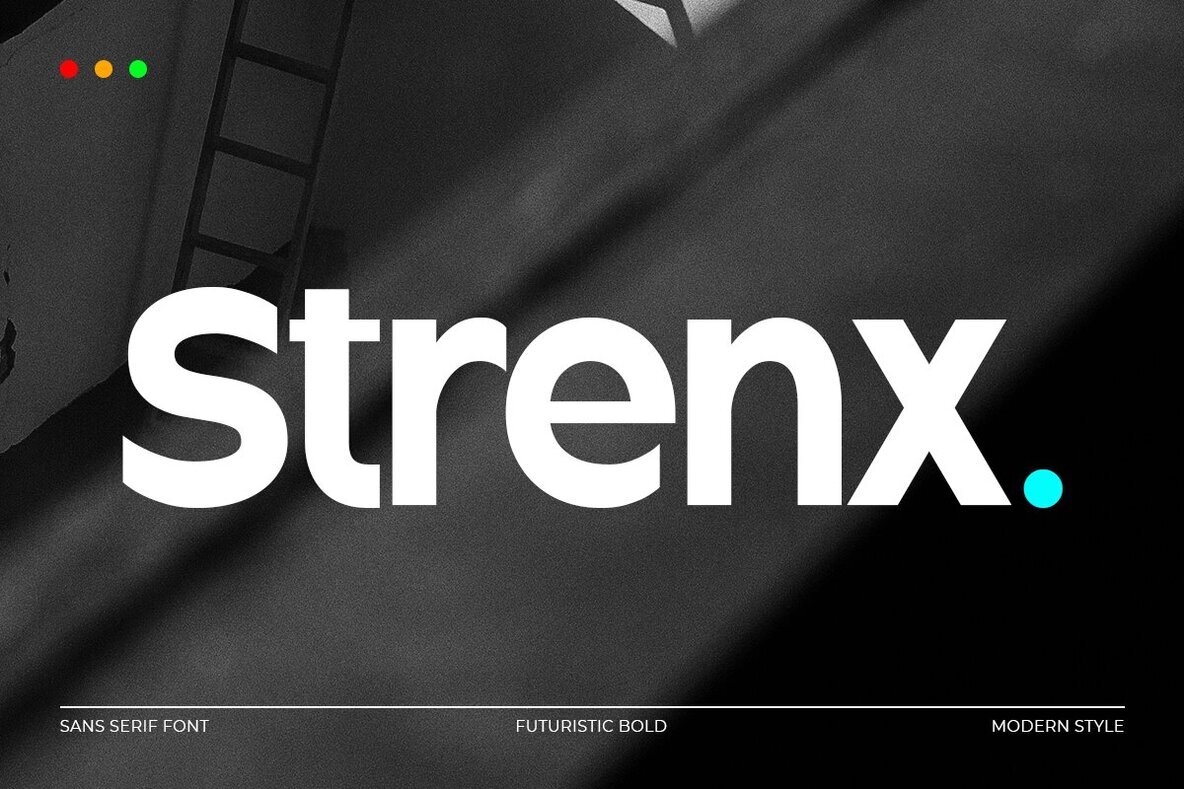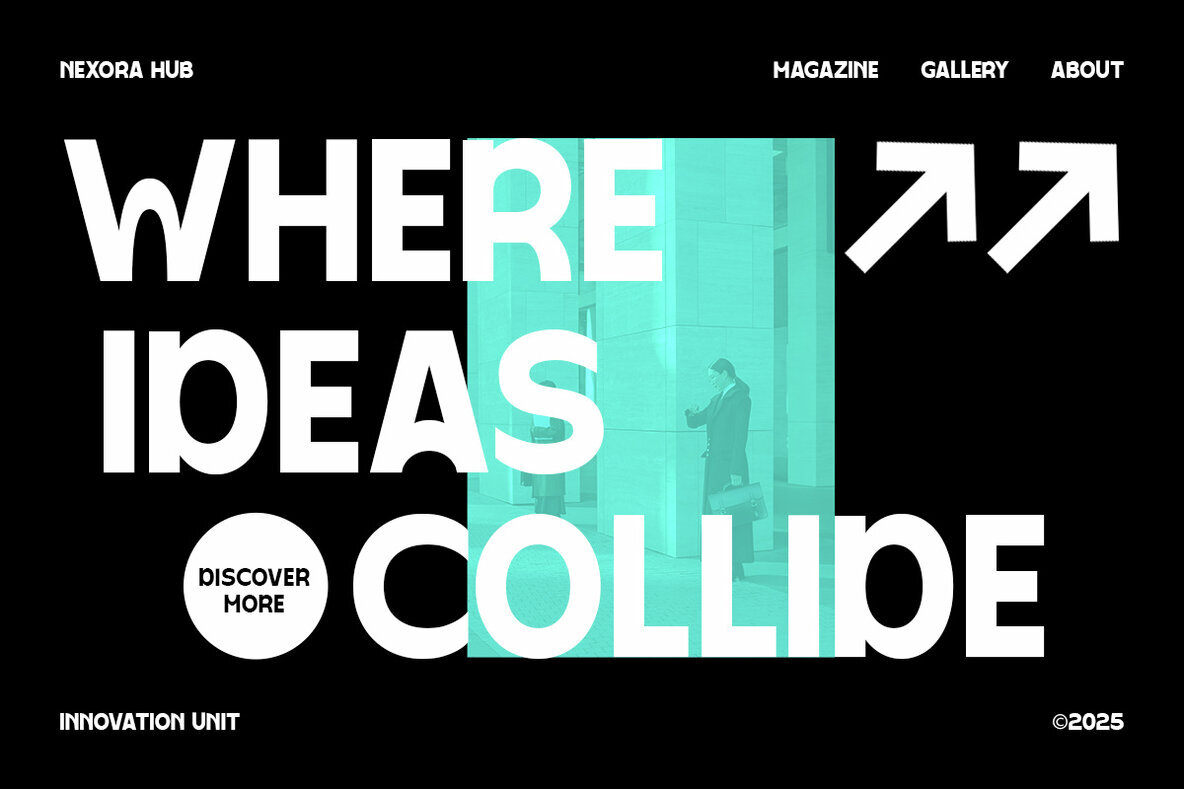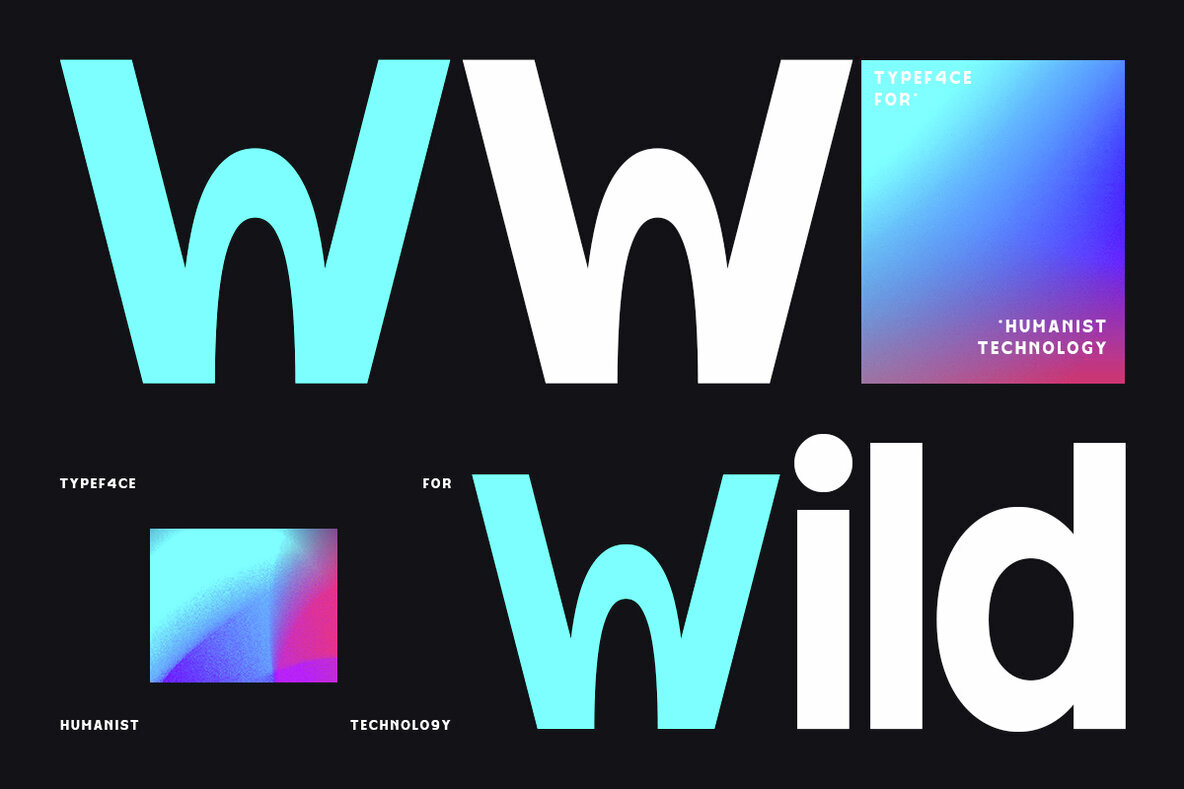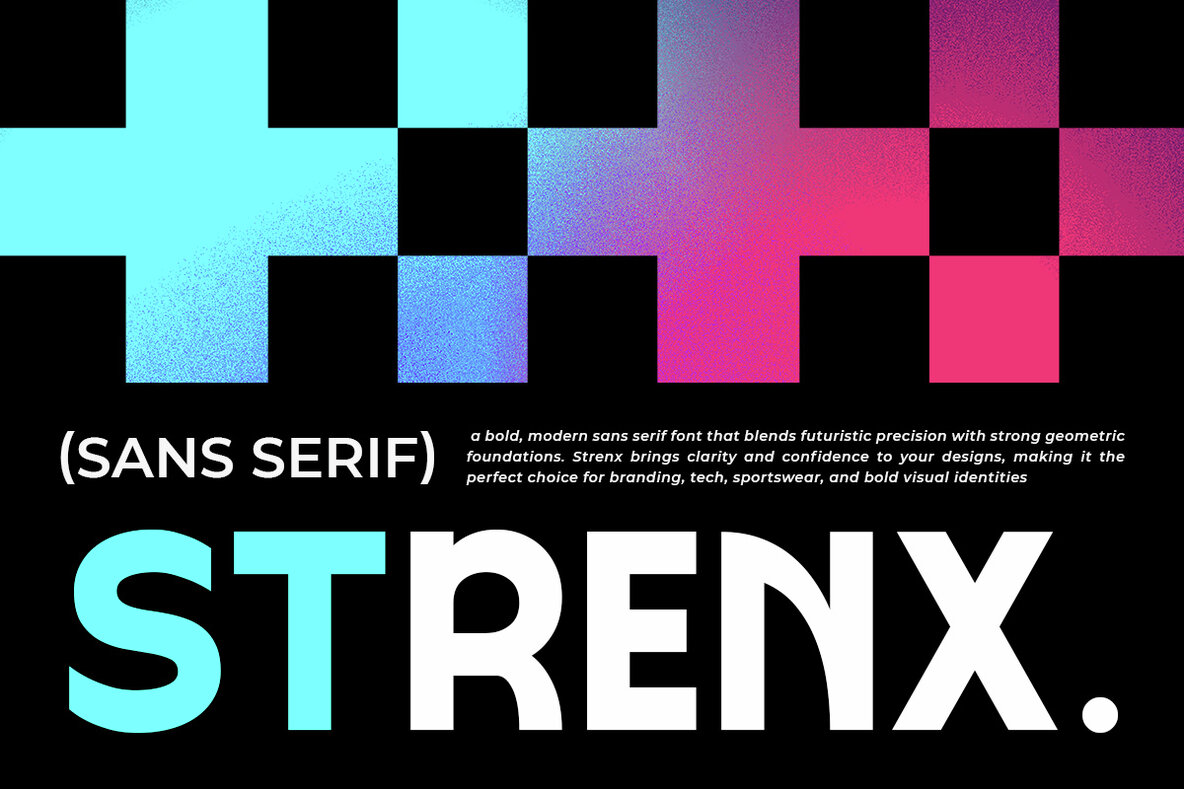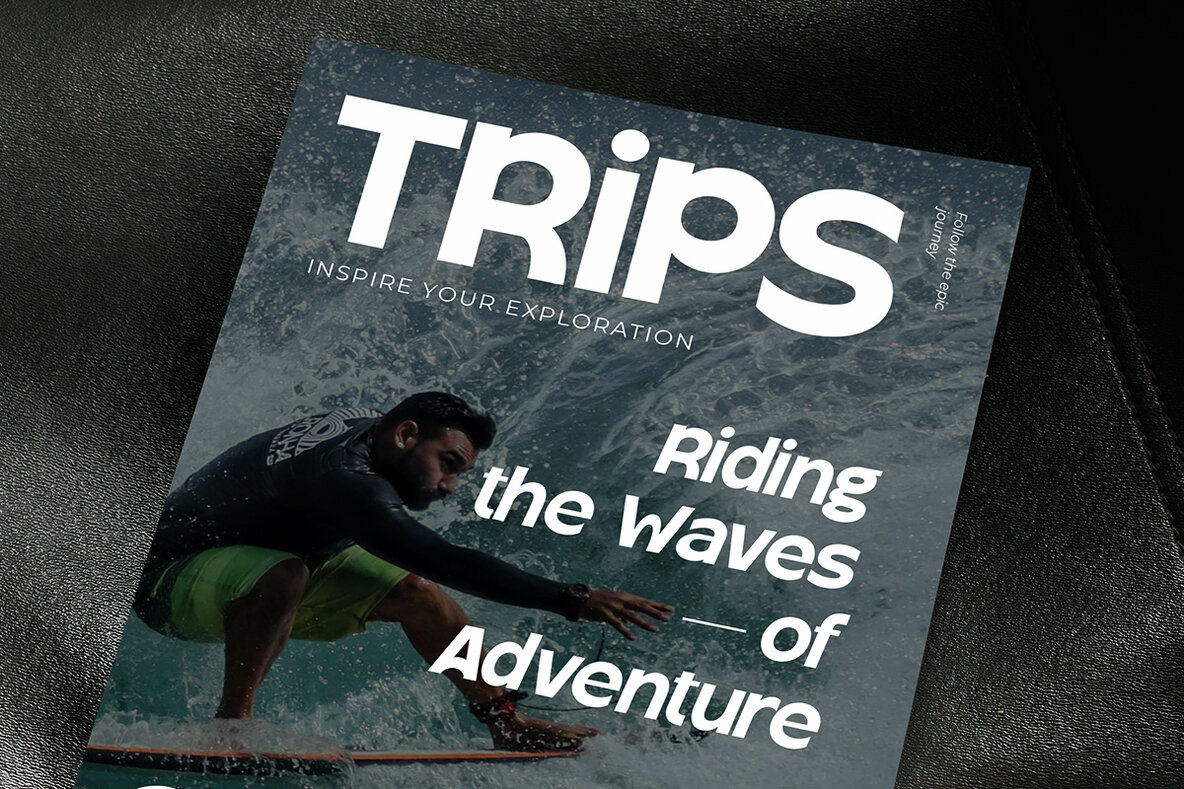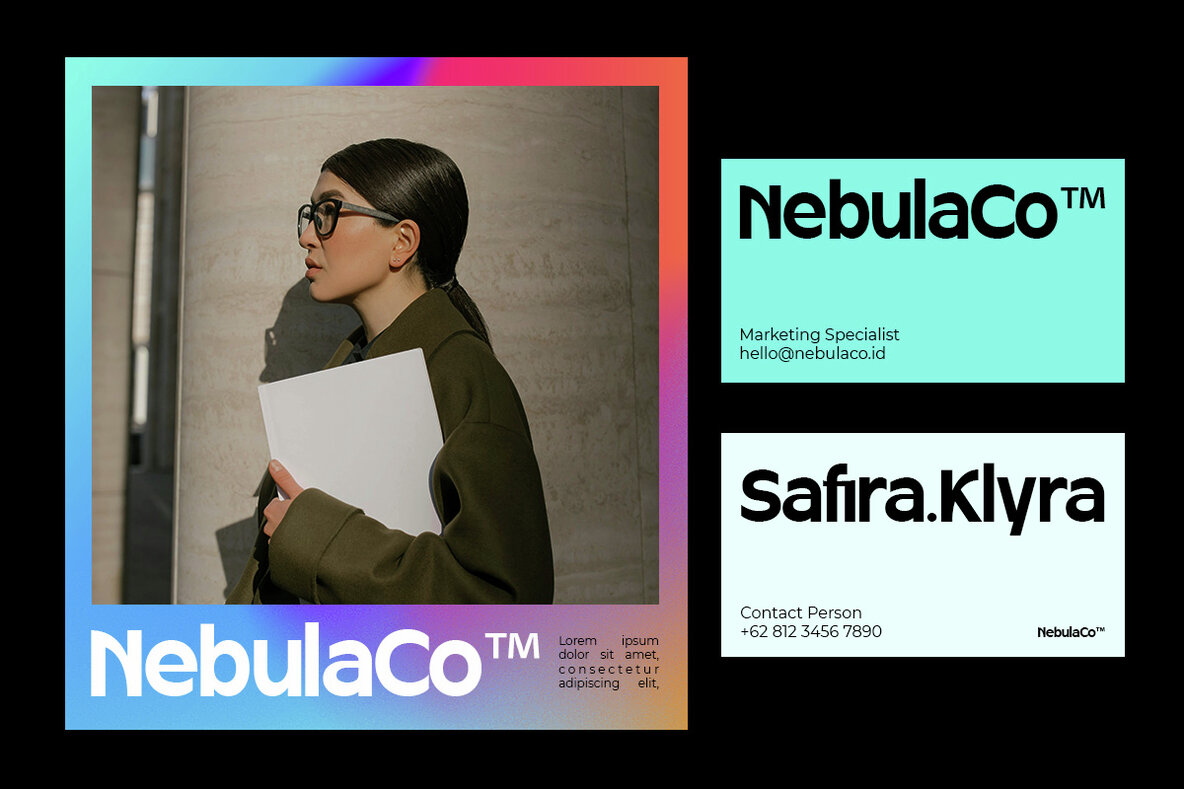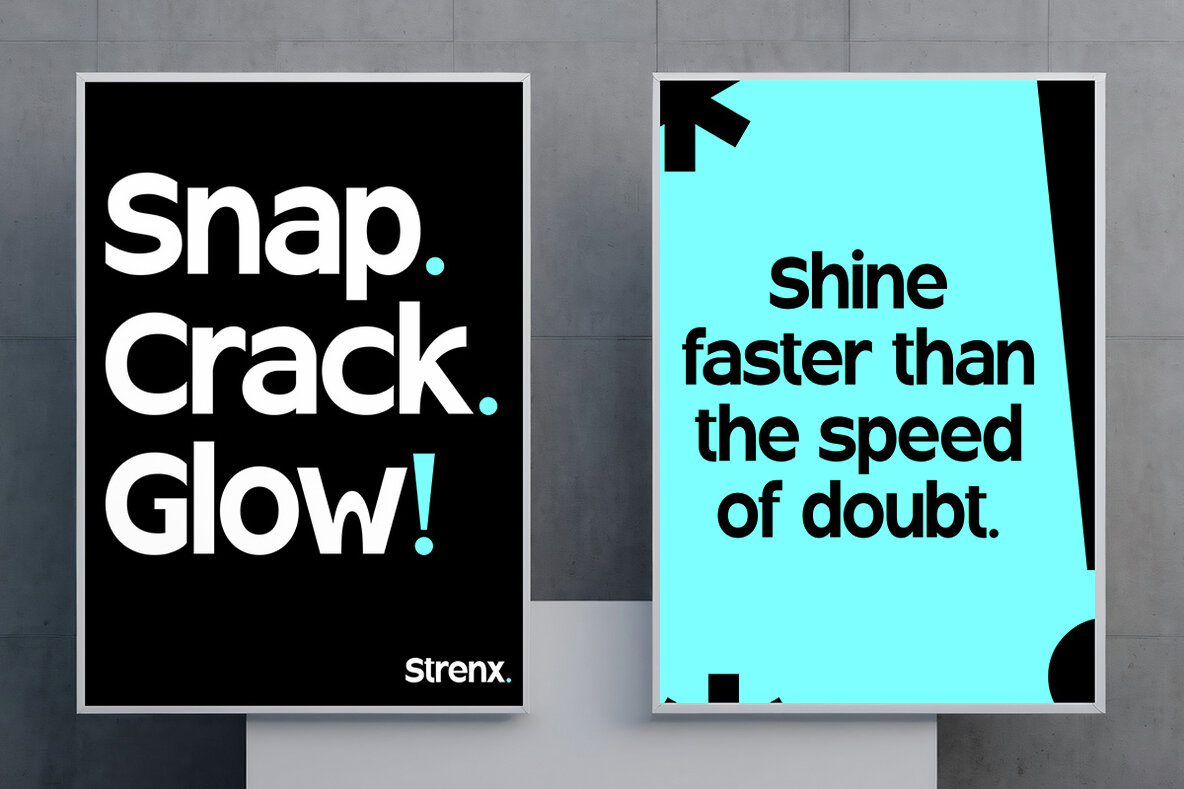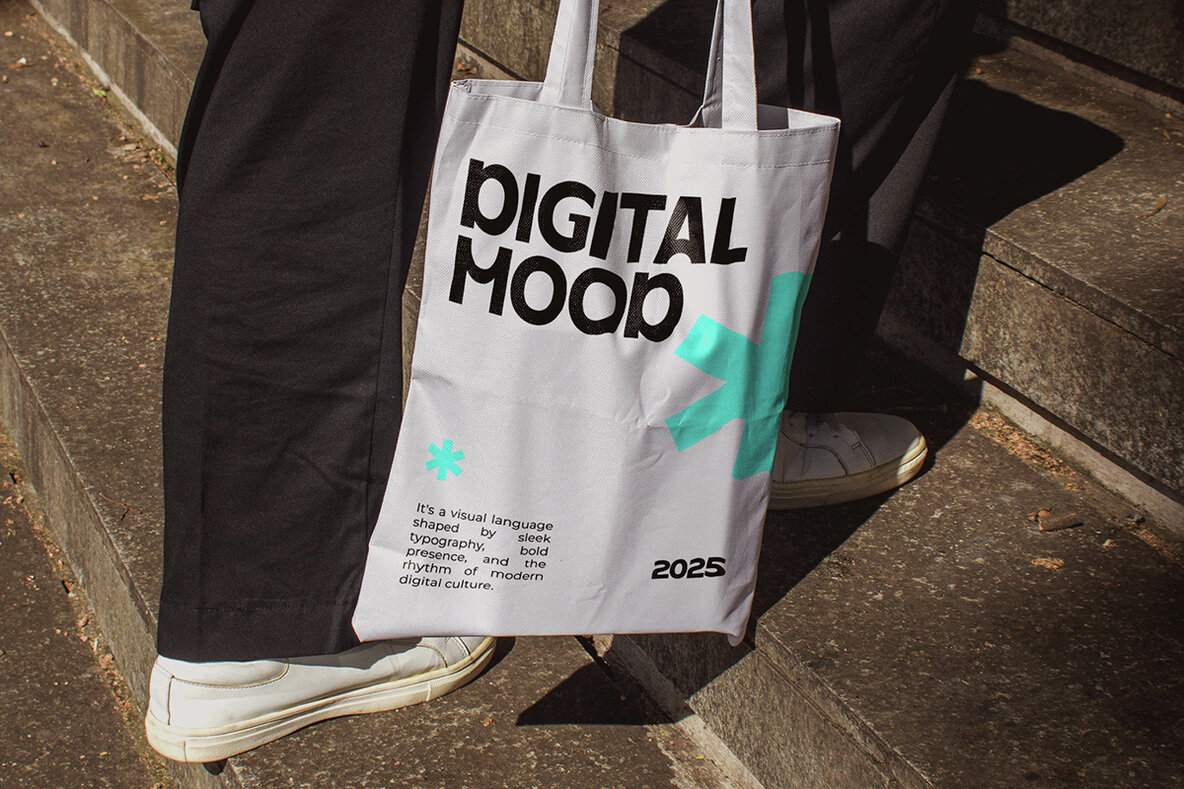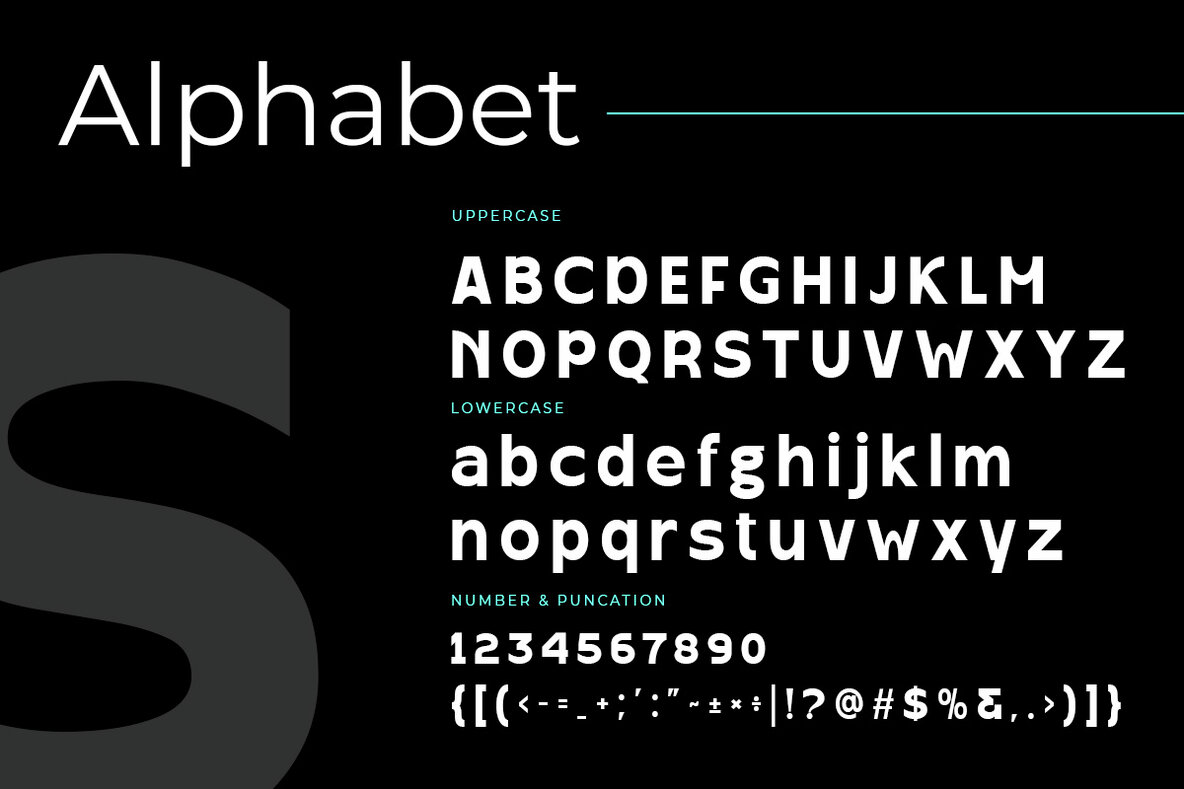
Strenx Font
Strenx is a bold, modern sans serif font exuding a strong, futuristic vibe, perfect for making a statement in your designs. With clean lines, balanced shapes, and a confident style, Strenx enhances projects ranging from logos and branding to posters and web design. Whether creating tech projects, crafting creative branding, or demanding attention with bold headlines, this typeface is your ideal choice.Strenx - Modern Sans Serif Font